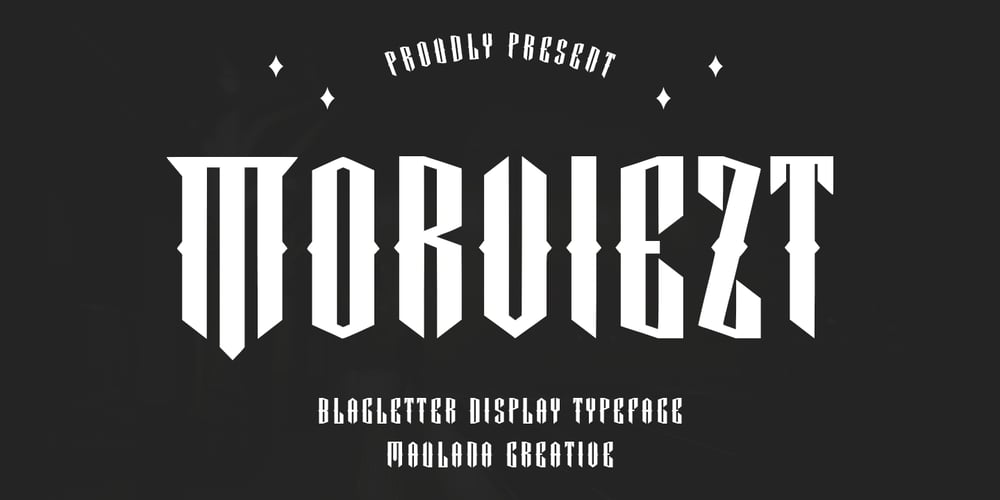
MC Morviezt Font Family was designed by Gilang Maulana and published by Maulana Creative. MC Morviezt contains 1 styles and family package options. Morviezt blackletter display typeface. Heavy stroke, fun character with a bit of ligatures. To give you an extra creative work. Morviezt blackletter display typeface support multilingual more than 100+ language. This font is good for logo design, Social media, Movie Titles, Books Titles, a short text even a long text letter and good for your secondary text font with script or serif. Make a stunning work with Morviezt blackletter display typeface.Cheers, Maulana Creative